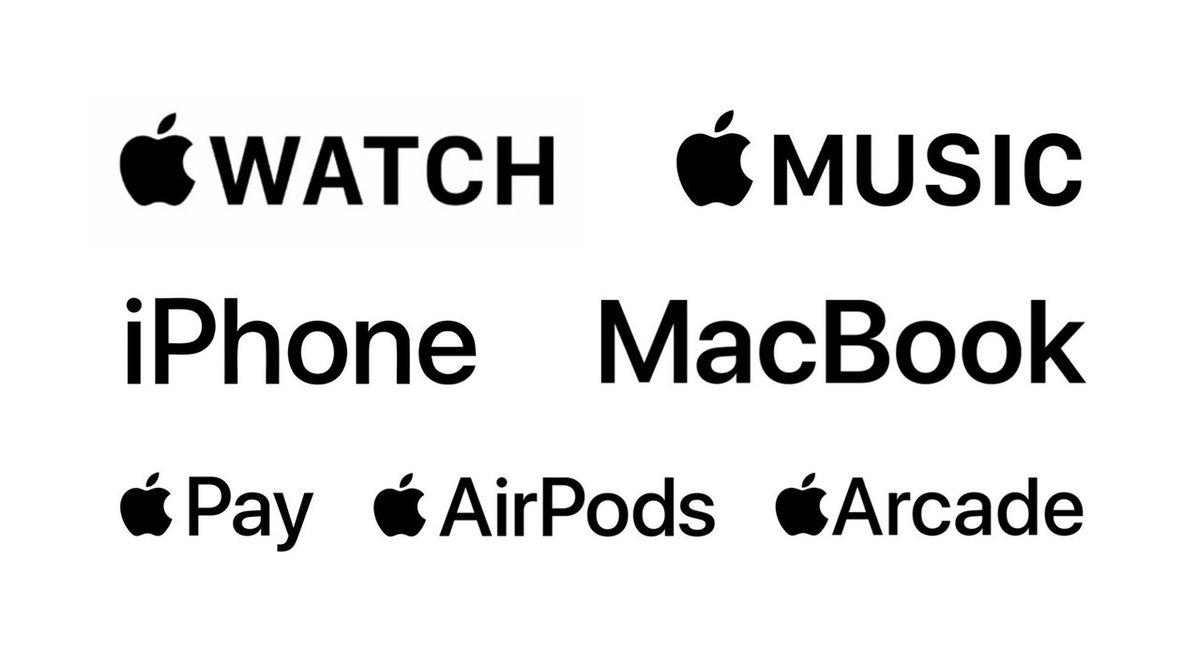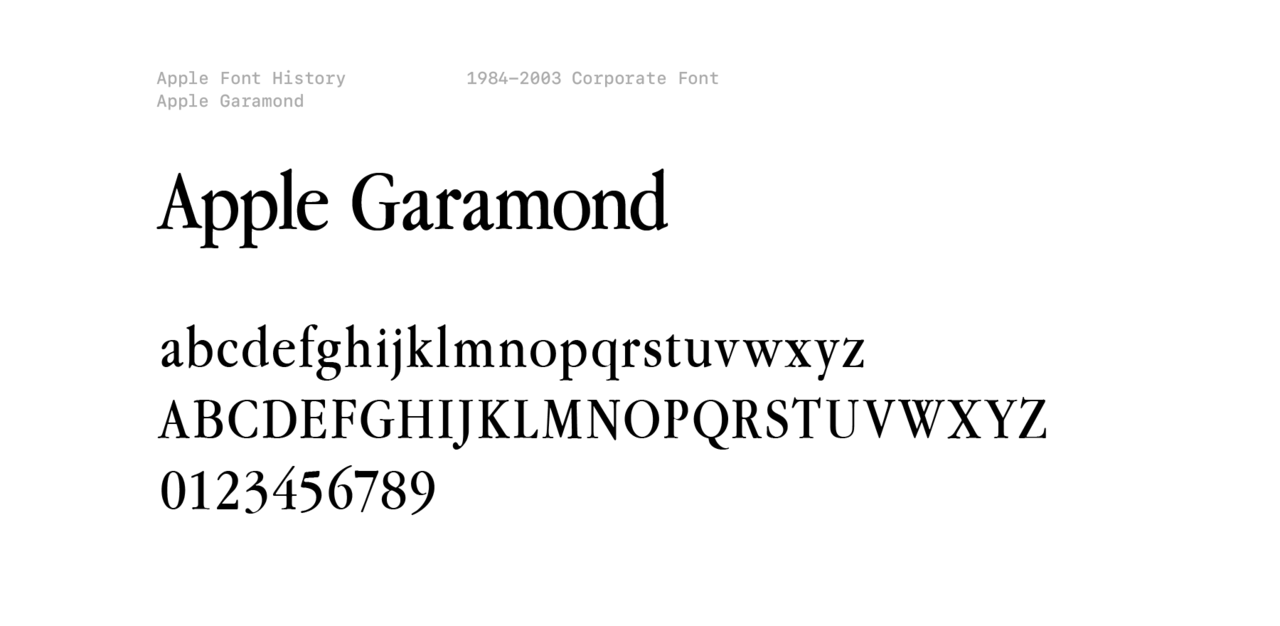
Apple Font History . History of the apple logo font and typeface. With the release of the macintosh in 1984, apple changed to the apple garamond font, a custom version of the classic serif typeface. The garamond family of typefaces are renowned for being eternally legible, and. 125 rows this list of fonts contains every font shipped with mac os x 10.0 through macos 10.14, including any that shipped with language. After two rocky years as apple's typographical identity, helvetica neue is being replaced by a bespoke font, san francisco, as the default font on both os x el capitan and ios 9. Regis mckenna tasked rob janoff, an art director, with designing a logo for steve jobs’ apple computer in 1977.
After two rocky years as apple's typographical identity, helvetica neue is being replaced by a bespoke font, san francisco, as the default font on both os x el capitan and ios 9. 125 rows this list of fonts contains every font shipped with mac os x 10.0 through macos 10.14, including any that shipped with language. Regis mckenna tasked rob janoff, an art director, with designing a logo for steve jobs’ apple computer in 1977. History of the apple logo font and typeface. With the release of the macintosh in 1984, apple changed to the apple garamond font, a custom version of the classic serif typeface. The garamond family of typefaces are renowned for being eternally legible, and.
Apple Font History Regis mckenna tasked rob janoff, an art director, with designing a logo for steve jobs’ apple computer in 1977. With the release of the macintosh in 1984, apple changed to the apple garamond font, a custom version of the classic serif typeface. History of the apple logo font and typeface. The garamond family of typefaces are renowned for being eternally legible, and. After two rocky years as apple's typographical identity, helvetica neue is being replaced by a bespoke font, san francisco, as the default font on both os x el capitan and ios 9. 125 rows this list of fonts contains every font shipped with mac os x 10.0 through macos 10.14, including any that shipped with language. Regis mckenna tasked rob janoff, an art director, with designing a logo for steve jobs’ apple computer in 1977.
Apple Font History 〜書体で見るAppleの歴史2〜|WOW note Apple Font History Regis mckenna tasked rob janoff, an art director, with designing a logo for steve jobs’ apple computer in 1977. The garamond family of typefaces are renowned for being eternally legible, and. After two rocky years as apple's typographical identity, helvetica neue is being replaced by a bespoke font, san francisco, as the default font on both os x el capitan. Apple Font History.
Apple Font History 〜書体で見るAppleの歴史2〜|WOW note Apple Font History 125 rows this list of fonts contains every font shipped with mac os x 10.0 through macos 10.14, including any that shipped with language. History of the apple logo font and typeface. Regis mckenna tasked rob janoff, an art director, with designing a logo for steve jobs’ apple computer in 1977. With the release of the macintosh in 1984, apple. Apple Font History.
Apple Font History 〜書体で見るAppleの歴史2〜|WOW note Apple Font History Regis mckenna tasked rob janoff, an art director, with designing a logo for steve jobs’ apple computer in 1977. After two rocky years as apple's typographical identity, helvetica neue is being replaced by a bespoke font, san francisco, as the default font on both os x el capitan and ios 9. History of the apple logo font and typeface. The. Apple Font History.
Apple Font History 〜書体で見るAppleの歴史1〜(note(ノート)) Apple Font History of the apple logo font and typeface. 125 rows this list of fonts contains every font shipped with mac os x 10.0 through macos 10.14, including any that shipped with language. After two rocky years as apple's typographical identity, helvetica neue is being replaced by a bespoke font, san francisco, as the default font on both os x el. Apple Font History.
Apple Font History 〜書体で見るAppleの歴史2〜|WOW note Apple Font History After two rocky years as apple's typographical identity, helvetica neue is being replaced by a bespoke font, san francisco, as the default font on both os x el capitan and ios 9. Regis mckenna tasked rob janoff, an art director, with designing a logo for steve jobs’ apple computer in 1977. With the release of the macintosh in 1984, apple. Apple Font History.
Apple fonts, a typographic timeline TypeRoom Apple Font History of the apple logo font and typeface. 125 rows this list of fonts contains every font shipped with mac os x 10.0 through macos 10.14, including any that shipped with language. After two rocky years as apple's typographical identity, helvetica neue is being replaced by a bespoke font, san francisco, as the default font on both os x el. Apple Font History.
Apple fonts, a typographic timeline TypeRoom Apple Font History With the release of the macintosh in 1984, apple changed to the apple garamond font, a custom version of the classic serif typeface. After two rocky years as apple's typographical identity, helvetica neue is being replaced by a bespoke font, san francisco, as the default font on both os x el capitan and ios 9. Regis mckenna tasked rob janoff,. Apple Font History.
Apple Font History 애플 서체 역사 Apple Font History of the apple logo font and typeface. After two rocky years as apple's typographical identity, helvetica neue is being replaced by a bespoke font, san francisco, as the default font on both os x el capitan and ios 9. With the release of the macintosh in 1984, apple changed to the apple garamond font, a custom version of the. Apple Font History.
Apple fonts, a typographic timeline TypeRoom Apple Font History With the release of the macintosh in 1984, apple changed to the apple garamond font, a custom version of the classic serif typeface. After two rocky years as apple's typographical identity, helvetica neue is being replaced by a bespoke font, san francisco, as the default font on both os x el capitan and ios 9. History of the apple logo. Apple Font History.